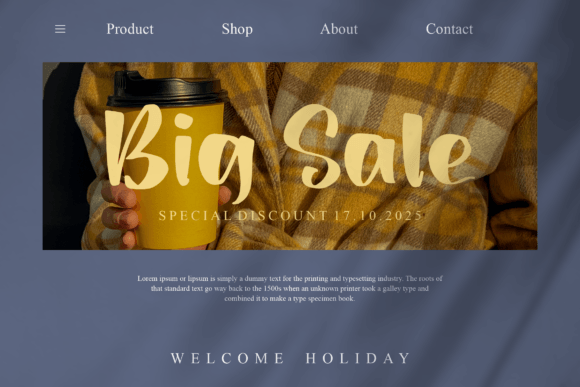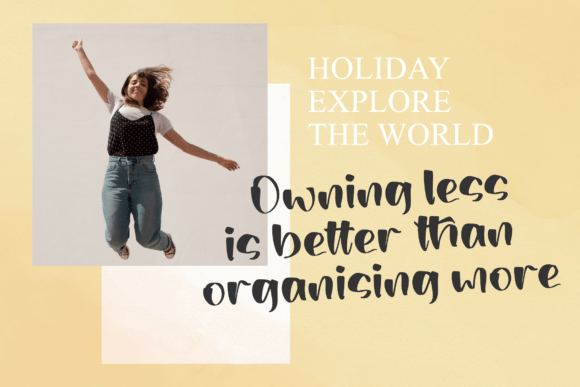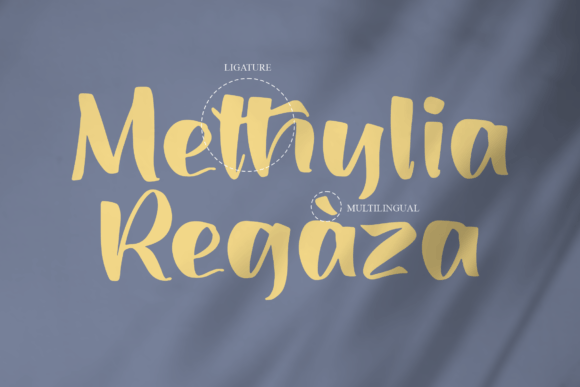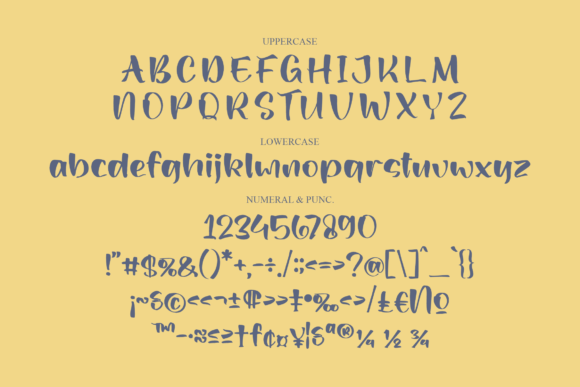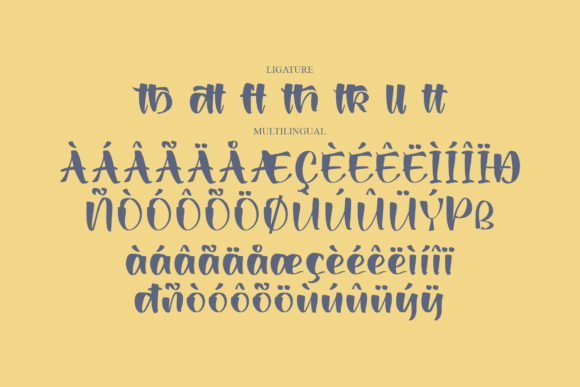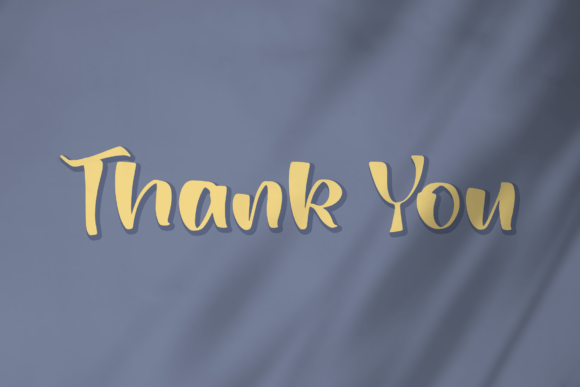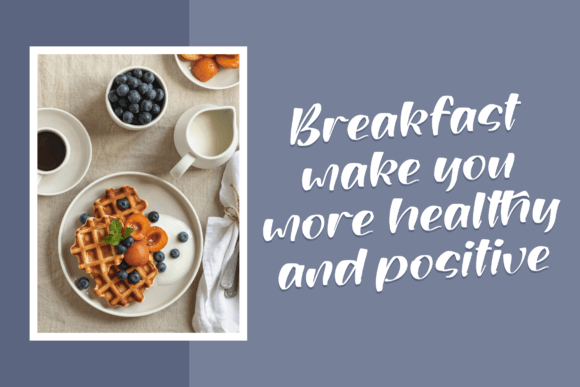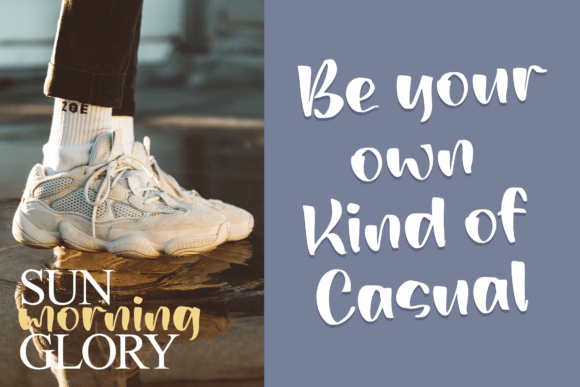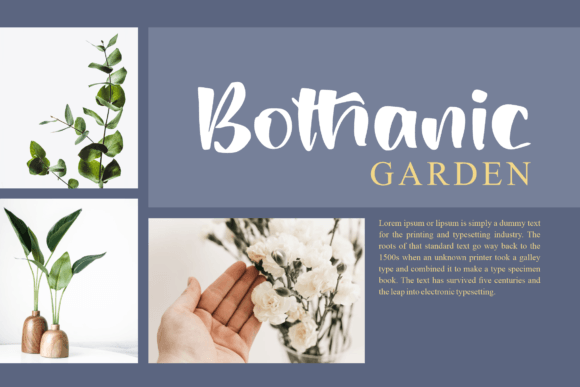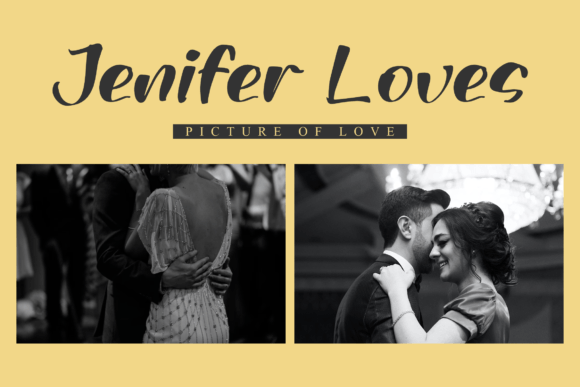
Methylia Font
About Methylia Font
Introducing “Methylia,” a modern script font crafted to elevate your projects with its beautiful script taste. This versatile font is suitable for a wide range of applications, making it perfect for logos, branding projects, homeware designs, product packaging, mugs, quotes, posters, shopping bags, t-shirts, book covers, name cards, invitation cards, greeting cards, labels, photography, watermark, special events, and more. Let Methylia be the elegant and stylish script font that enhances the visual appeal of your lovely projects.
Methylia’s modern script style brings a contemporary and sophisticated touch to your designs. Whether you’re working on a branding project that demands elegance or creating product packaging that requires a stylish script, this font is designed to meet your aesthetic needs.
The versatility of Methylia extends to various design contexts, making it suitable for a wide array of projects. Its graceful script characters lend themselves well to applications like posters, shopping bags, t-shirts, and book covers, where a touch of beautiful script typography can make a significant impact.
For name cards, invitation cards, greeting cards, and labels, Methylia’s exquisite script taste adds a personalized and elegant touch. The font is tailored to enhance the overall aesthetic appeal of these items, making them stand out with a sense of style and sophistication.
The application of Methylia goes beyond printed materials, extending to digital platforms such as watermarks and social media graphics. Its beautiful script taste ensures that your online presence is equally captivating and stylish.
In summary, Methylia is more than just a font; it’s a versatile and elegant script font designed to enhance the beauty of your projects. Whether you’re working on branding, packaging, apparel, or digital media, let Methylia be the font that adds a touch of beauty and sophistication to all your lovely endeavors.